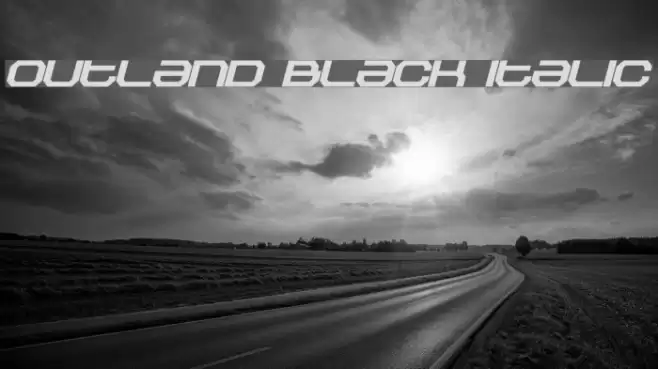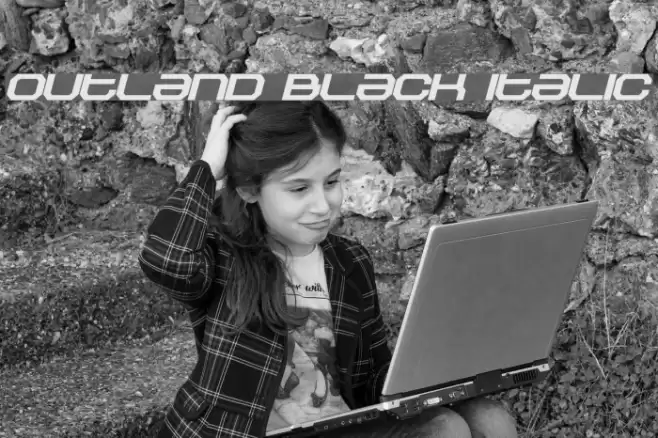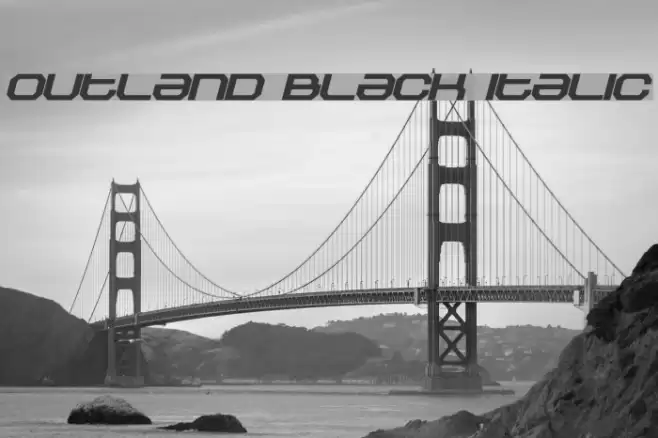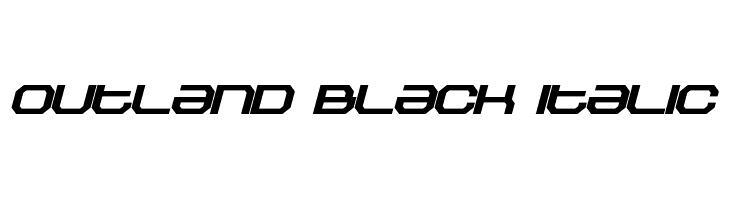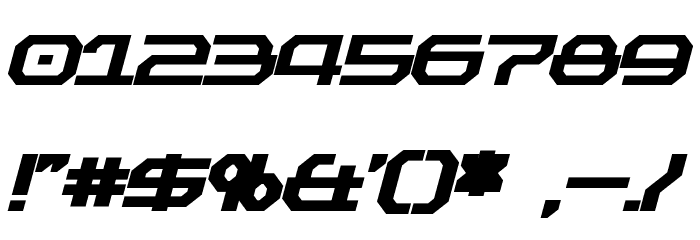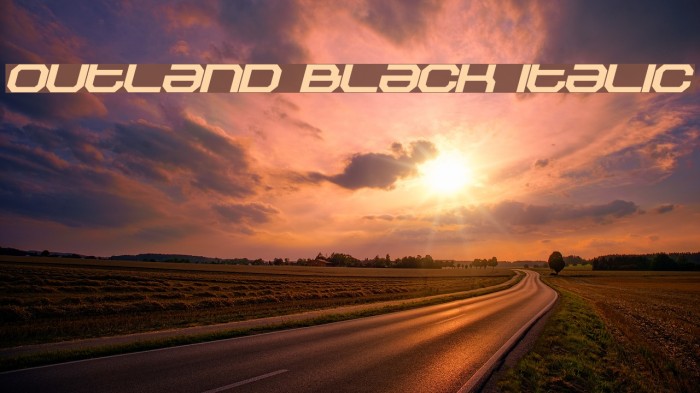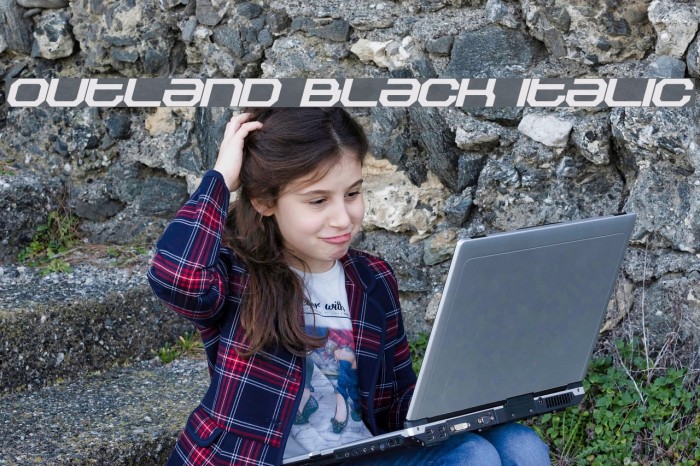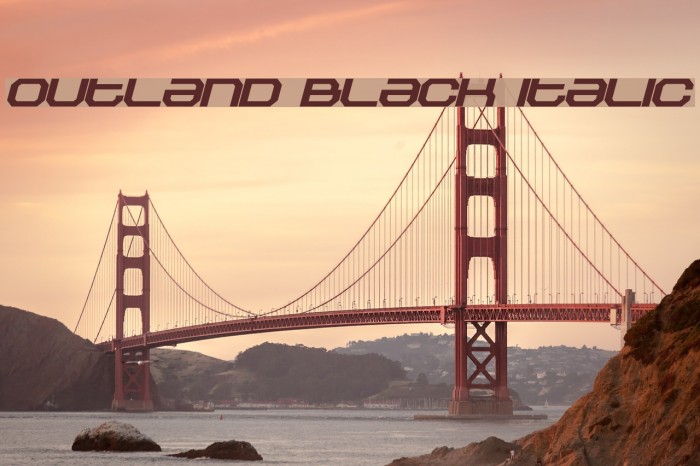
Outland Black Italic Font
Outland Black Italic Description
This font features a bold and italicized style with a futuristic and geometric design. The characters are constructed with sharp angles and clean lines, giving it a modern and edgy appearance. The uppercase and lowercase letters maintain a consistent style, with a slight slant that adds dynamism and movement. The numbers and special characters follow the same design principles, ensuring uniformity across all glyphs. The font's bold weight and italic slant make it stand out, ideal for projects that require a strong visual impact.
A bold, italicized font with a futuristic and geometric design from Futuristic fonts.
- Proposed Projects: Ideal for sci-fi themed projects, technology branding, video game titles, and modern posters.